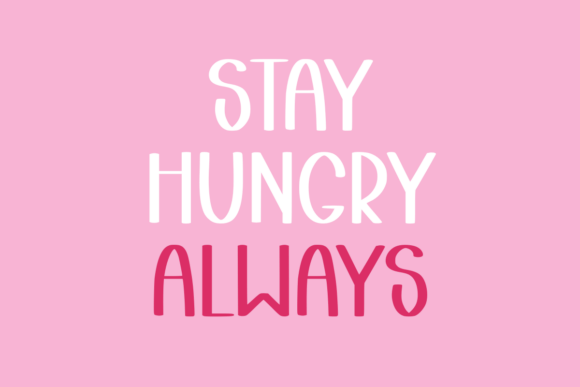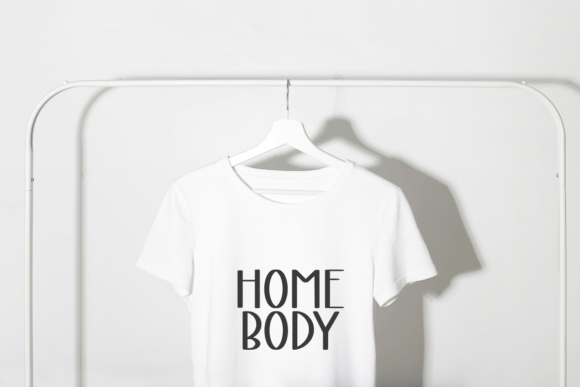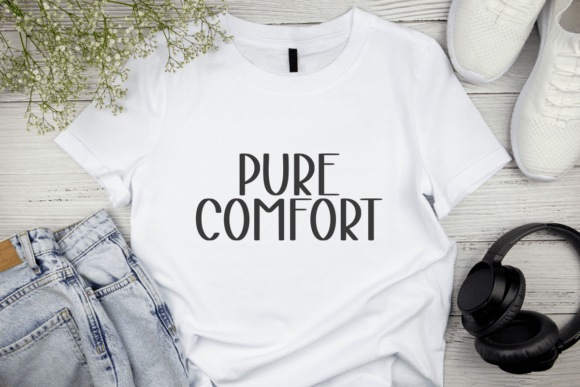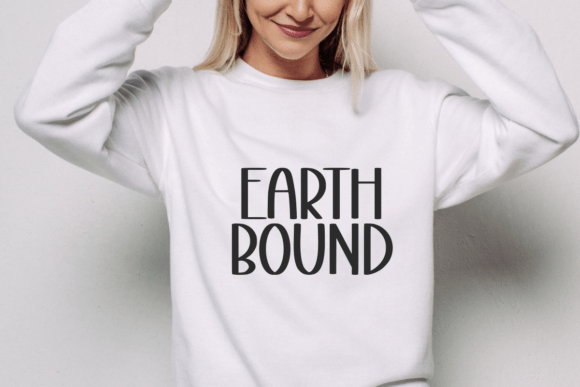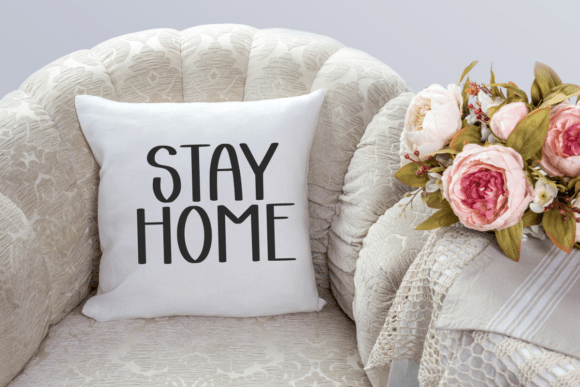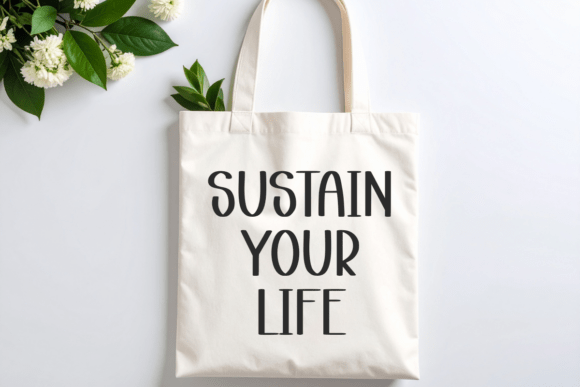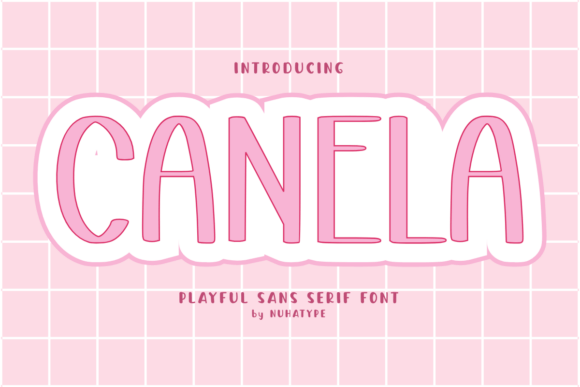
Canela Font: The Perfect Handwritten Style for Crafty Projects
Are you a crafter, designer, or DIY enthusiast looking for a font that can add a personal touch to your projects? Look no further than Canela Font, a cute sans serif handwriting font designed to bring a soft, friendly, and natural look to your creations. In this article, we’ll explore the features and benefits of Canela Font, and how it can be used to elevate your craft projects, planners, stickers, and more.
What is Canela Font?
Canela Font is a beautifully designed handwriting font that exudes a warm, handcrafted feeling. Its simple strokes and smooth curves make it easy to read and perfect for a variety of applications, from craft projects to classroom printables. The font’s soft and friendly look is sure to delight designers and crafters who love working with handwritten styles.
Features of Canela Font
- Cute and playful design: Canela Font features a sans serif design with a playful twist, making it perfect for kids’ projects, stickers, and coloring pages.
- Soft and friendly look: The font’s soft and friendly appearance makes it ideal for creating a warm and inviting atmosphere in your designs.
- Easy to cut: Canela Font’s simple strokes and smooth curves make it easy to cut using popular cutting machines like Cricut and Silhouette.
- Versatile: This font can be used for a wide range of projects, including quotes, greeting cards, kids’ labels, coloring pages, worksheets, bullet journals, scrapbooks, and more.
Benefits of Using Canela Font
Canela Font offers several benefits to designers and crafters, including:
- Unique and personalized designs: With Canela Font, you can create unique and personalized designs that stand out from the crowd.
- Easier project creation: The font’s simplicity and smooth curves make it easy to work with, saving you time and effort on your projects.
- Wide range of applications: Canela Font can be used for a variety of projects, making it a great addition to your font library.
Project Ideas Using Canela Font
Canela Font is perfect for a wide range of projects, including:
- Craft projects: Use Canela Font to add a personal touch to your craft projects, such as knitted items, woodwork, or paper crafts.
- Planners and journals: Add a playful touch to your planners and journals with Canela Font, making them more fun and engaging to use.
- Stickers and labels: Use Canela Font to create adorable stickers and labels for kids’ projects, parties, or DIY gifts.
- Classroom printables: Canela Font is perfect for creating engaging and interactive classroom printables, such as worksheets, coloring pages, and educational posters.
- DIY designs: Use Canela Font to add a personal touch to your DIY designs, such as signs, banners, or gift tags.
Tips for Using Canela Font
Here are some tips for getting the most out of Canela Font:
- Experiment with colors: Canela Font looks great in a variety of colors, so don’t be afraid to experiment and find the perfect color scheme for your project.
- Mix and match with other fonts: Canela Font pairs well with other fonts, so try mixing and matching it with other fonts to create a unique look.
- Use it for titles and headings: Canela Font is perfect for titles and headings, adding a playful touch to your projects.
Canela Font is a versatile and adorable handwriting font that’s perfect for designers and crafters who love working with handwritten styles. Its soft and friendly look, simple strokes, and smooth curves make it easy to use and perfect for a wide range of projects. Whether you’re creating craft projects, planners, stickers, or classroom printables, Canela Font is sure to add a personal touch and make your designs stand out. So why not give it a try and see what amazing projects you can create with Canela Font?